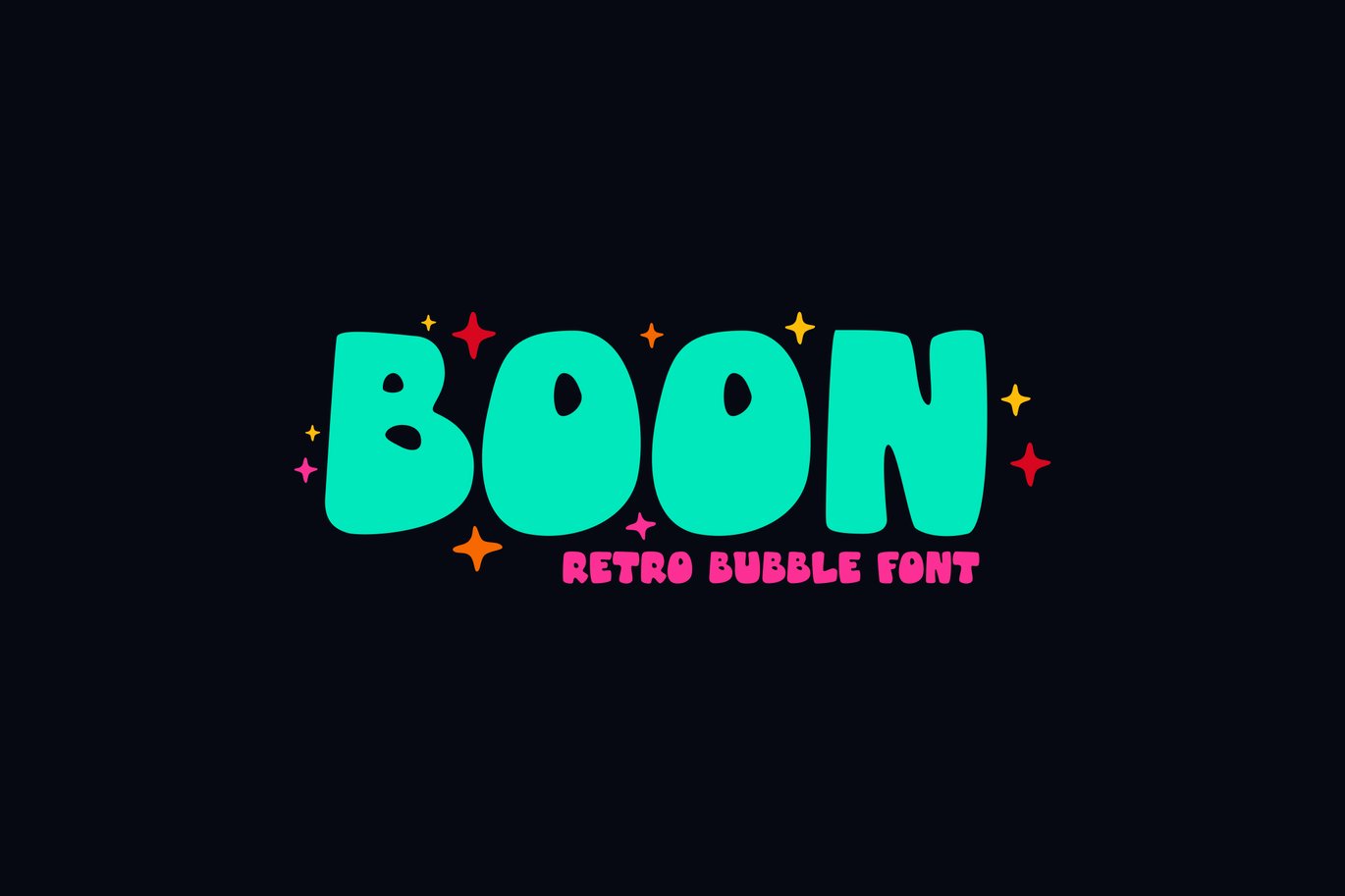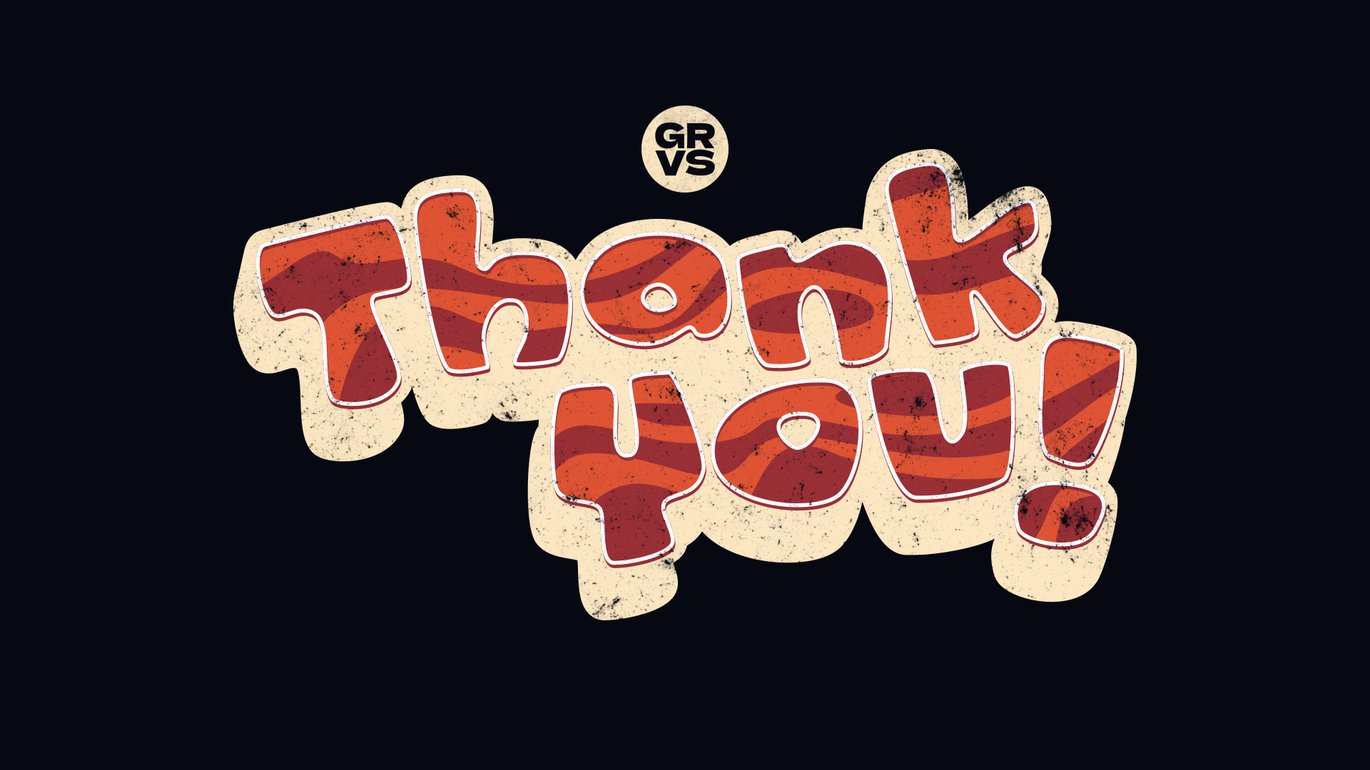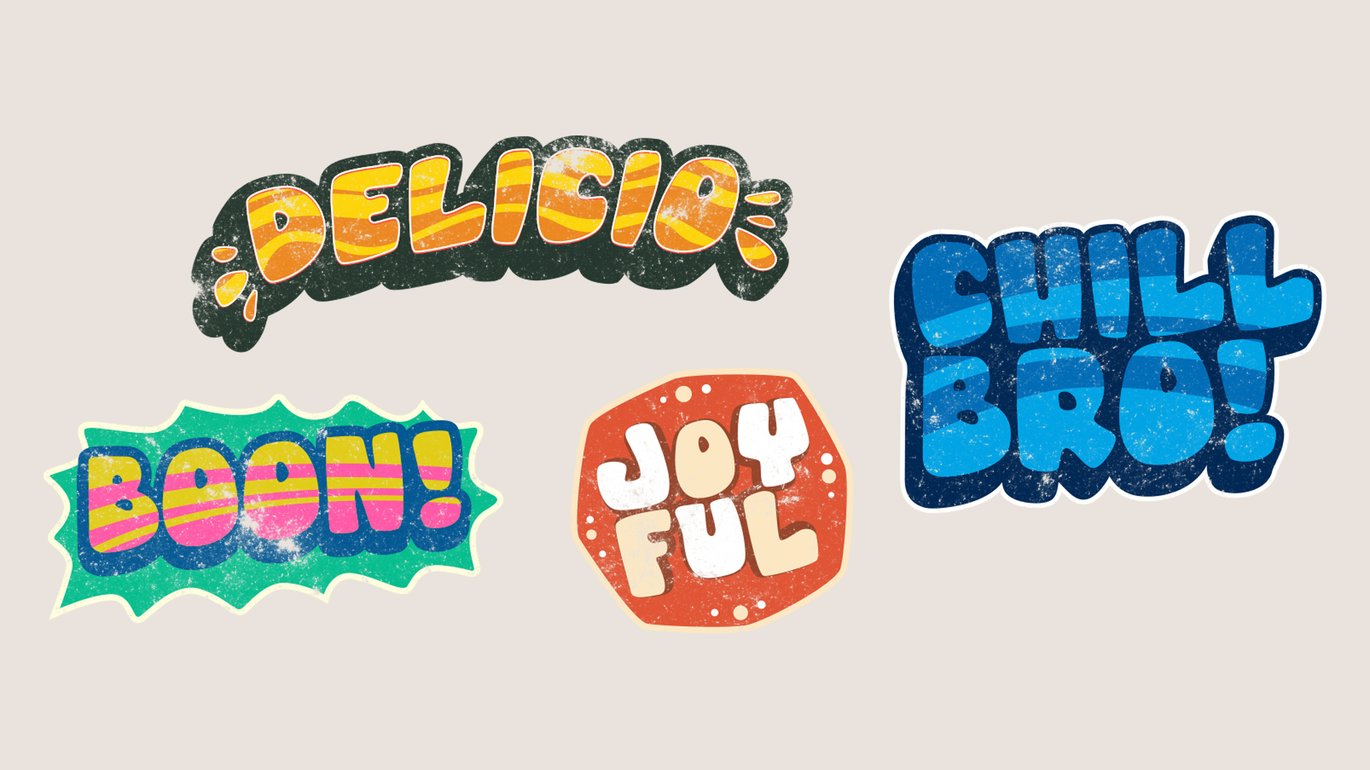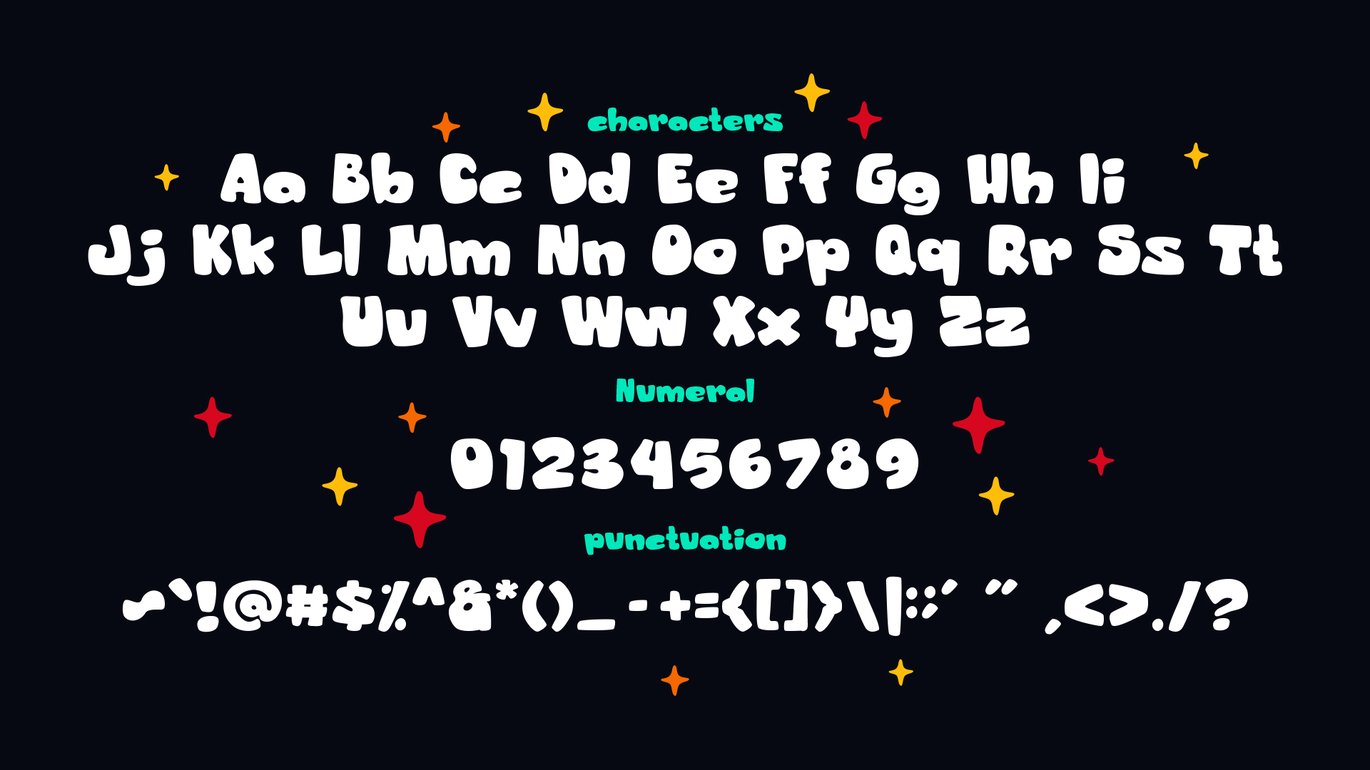
Boon Retro Bubble Font
GRVS Boon Retro Bubble Font is our new item that is suitable for your team logo, or community logo with a Funny, Kids, and Joy theme.
Great for Logo, Sticker, Jersey, Invitation Card, Brochures, etc.